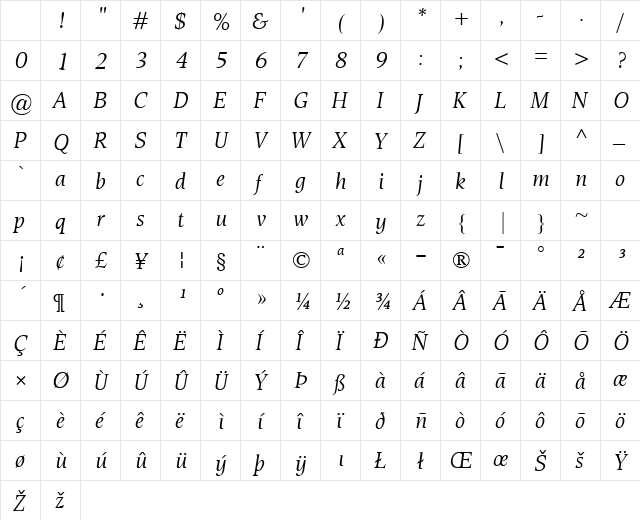
Complete Esperanto Italic glyph index. Displaying only characters natively supported by Esperanto Italic font.
Esperanto is a composed and adaptable typeface that performs quietly and consistently across a wide range of design contexts. The slanted form adds forward momentum and visual energy.